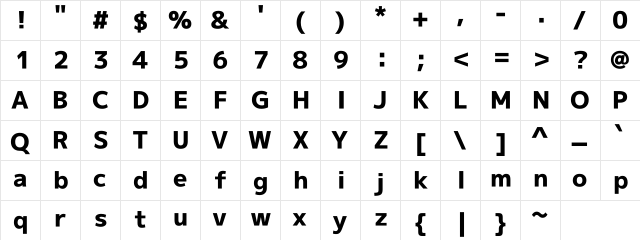
M+ 1p heavy
Design Context for M+ 1p Typeface
M+ 1p is a composed and adaptable typeface that performs quietly and consistently across a wide range of design contexts.
Pro Tip: Pair M+ 1p with a font of contrasting weight or personality to build a more expressive typographic hierarchy.